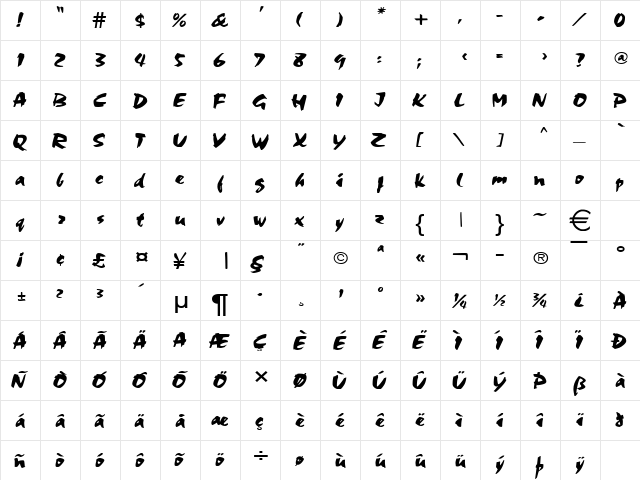
CocoaWide Normal Font Preview
CocoaWide Normal
Design Context for CocoaWide Typeface
CocoaWide is a composed and adaptable typeface that performs quietly and consistently across a wide range of design contexts.